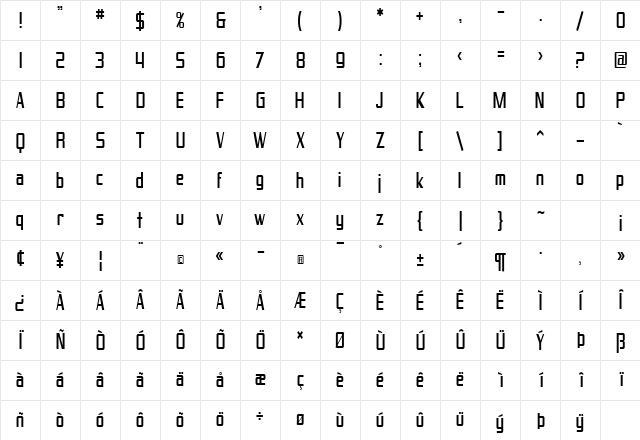
SF Proverbial Gothic Condensed Regular
Designer: ShyFonts Type Foundry
Complete SF Proverbial Gothic Condensed Regular glyph index. Displaying only characters natively supported by SF Proverbial Gothic Condensed Regular font.
Design Context for SF Proverbial Gothic Condensed
SF Proverbial Gothic Condensed takes a clean, functional approach - its unadorned letterforms prioritise legibility and work reliably across screen and print environments. Its narrow stance lets it pack a punch even in space-constrained designs.
Font Pairing: Works well alongside a characterful serif or display font that can carry the expressive load while SF Proverbial Gothic Condensed handles the functional copy.
Pro Tip: Use SF Proverbial Gothic Condensed tightly set in headlines and banners - its condensed proportions make it ideal for maximum impact in minimum horizontal space.